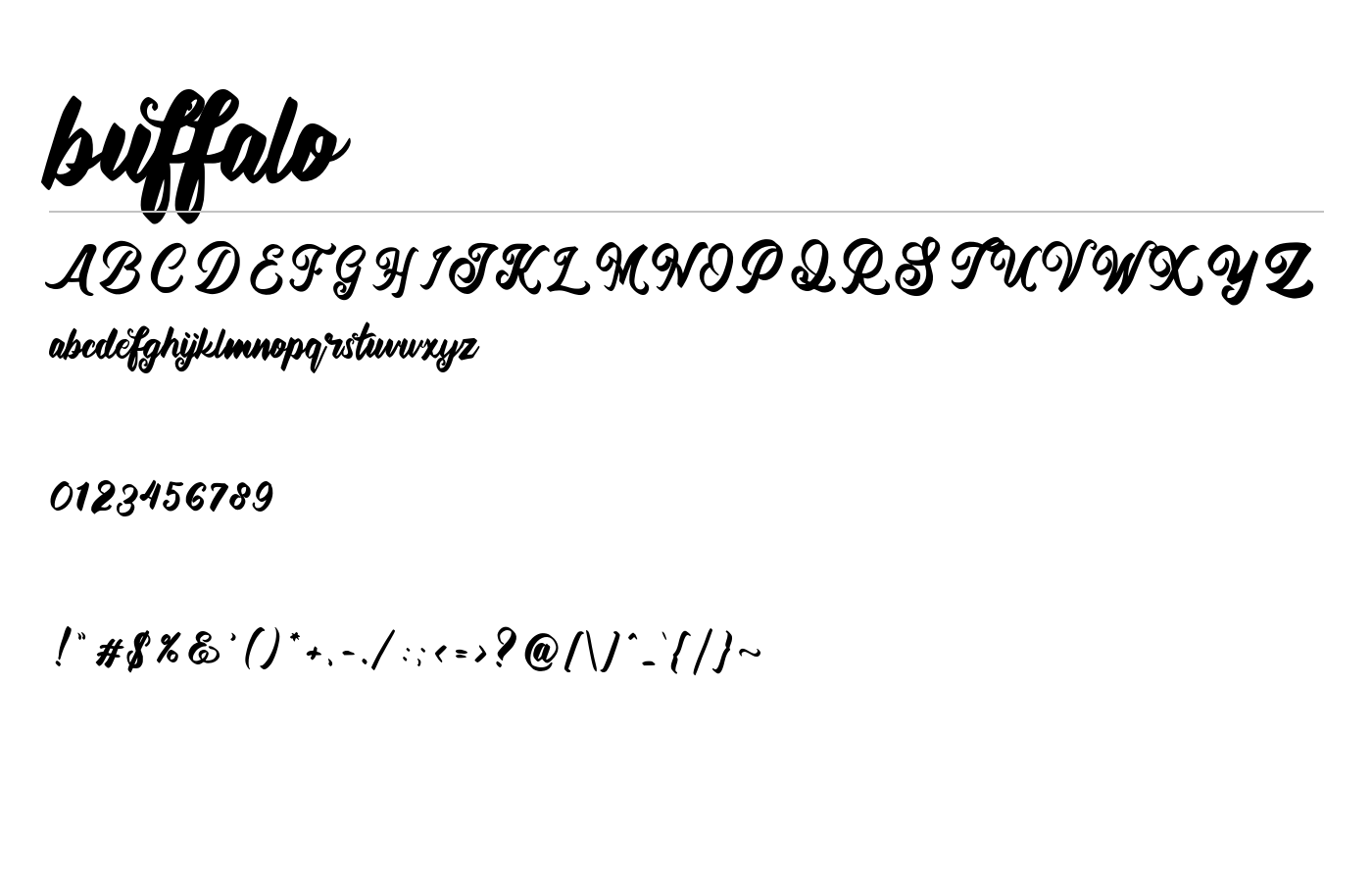
Buffalo is a bold and lively script font with a strong handwritten feel, featuring high contrast strokes and smooth, flowing curves. Its playful yet elegant style, characterized by unique letterforms and tight spacing, makes it ideal for branding, logos, and packaging that seek a vintage yet dynamic flair. This font shines best in display settings where personality and eye-catching appeal are key.
buffalo Font
About buffalo Font
| Font family | buffalo Font |
| Designer | Vunira Design |